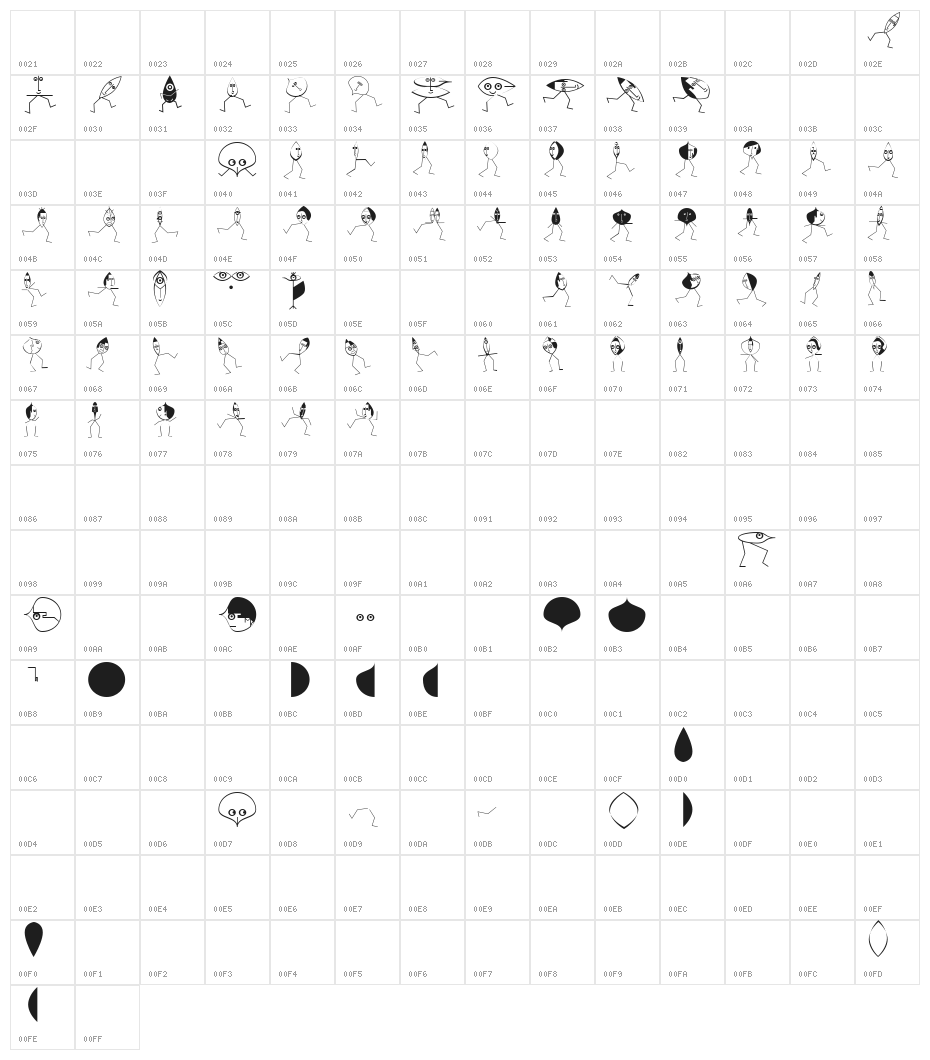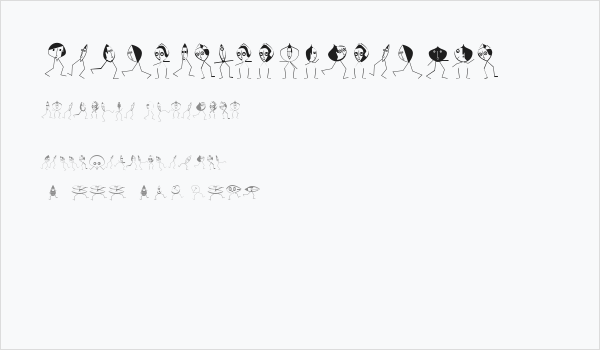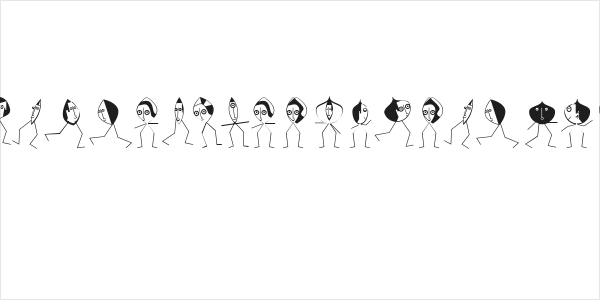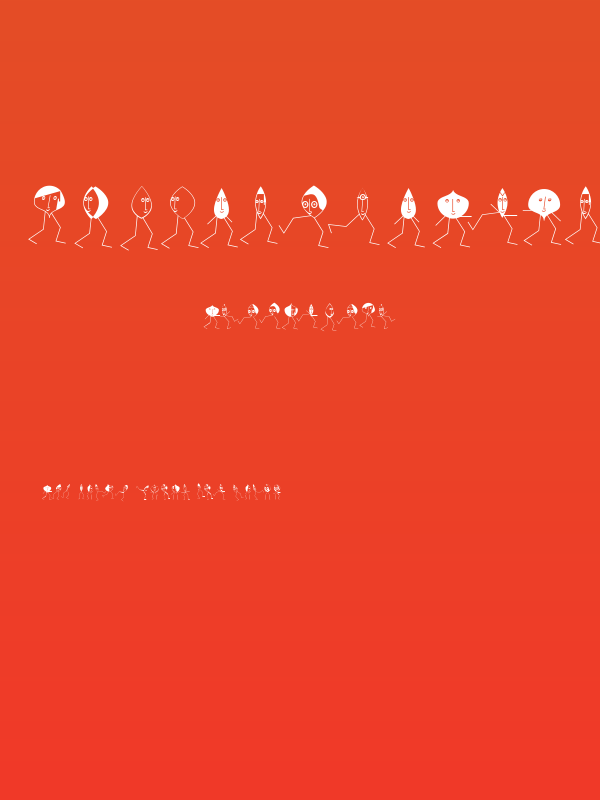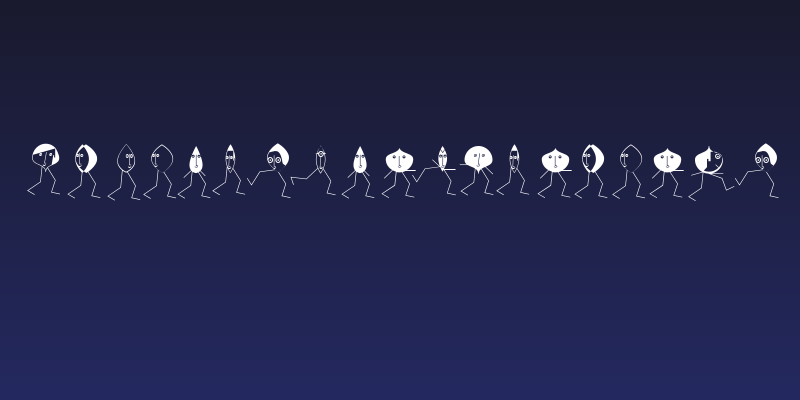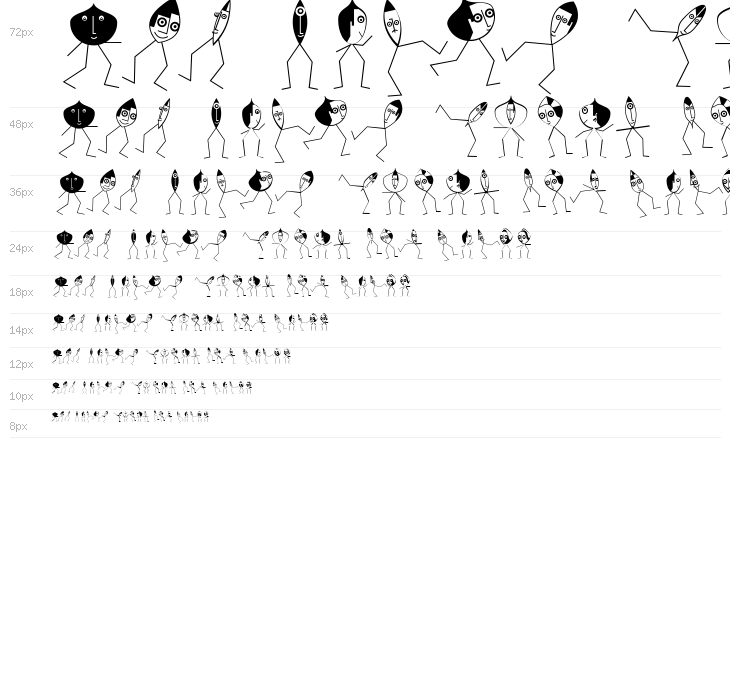
HeadsConstructedTwo Font
HeadsConstructedTwo Description
A whimsical, illustrative font composed of stick-figure characters with expressive, abstract faces as letterforms. Each glyph is unique, featuring playful and varied head shapes, facial expressions, and minimalistic limbs, creating a lively and animated appearance.
| Overall Style | Whimsical, Artistic, Playful |
| Use Case | Logos, Posters, Headlines, ChildrenΓ’β¬β’s materials |
| Proposed Projects | ChildrenΓ’β¬β’s books, playful branding, posters, creative invitations, art projects. |